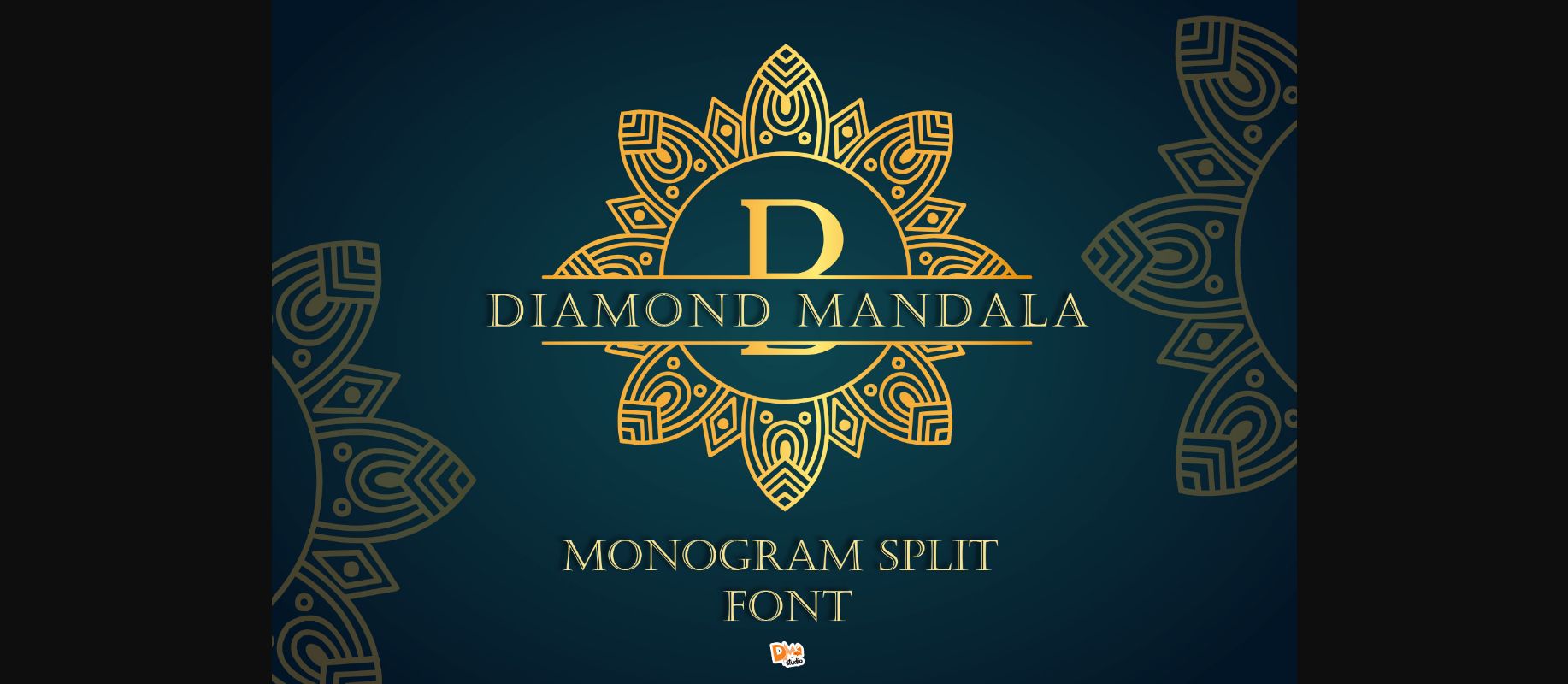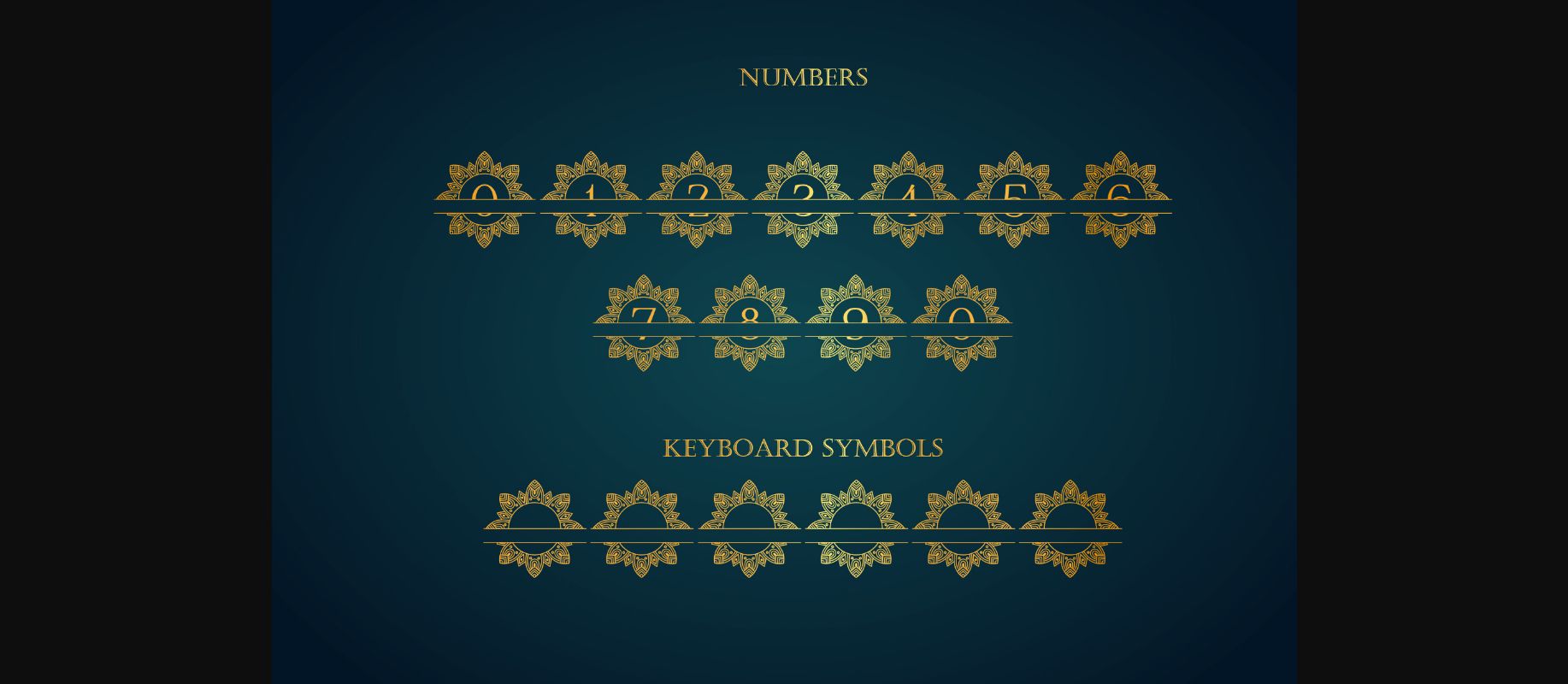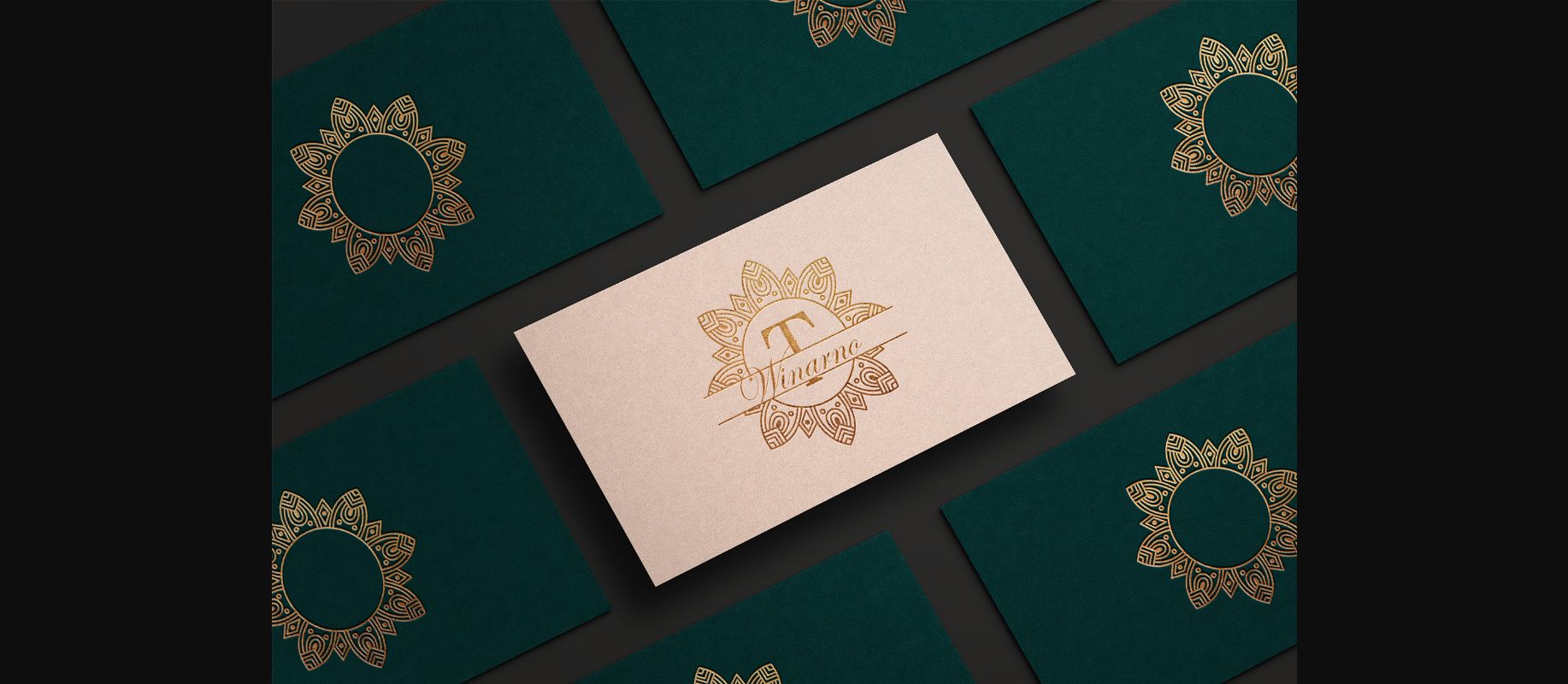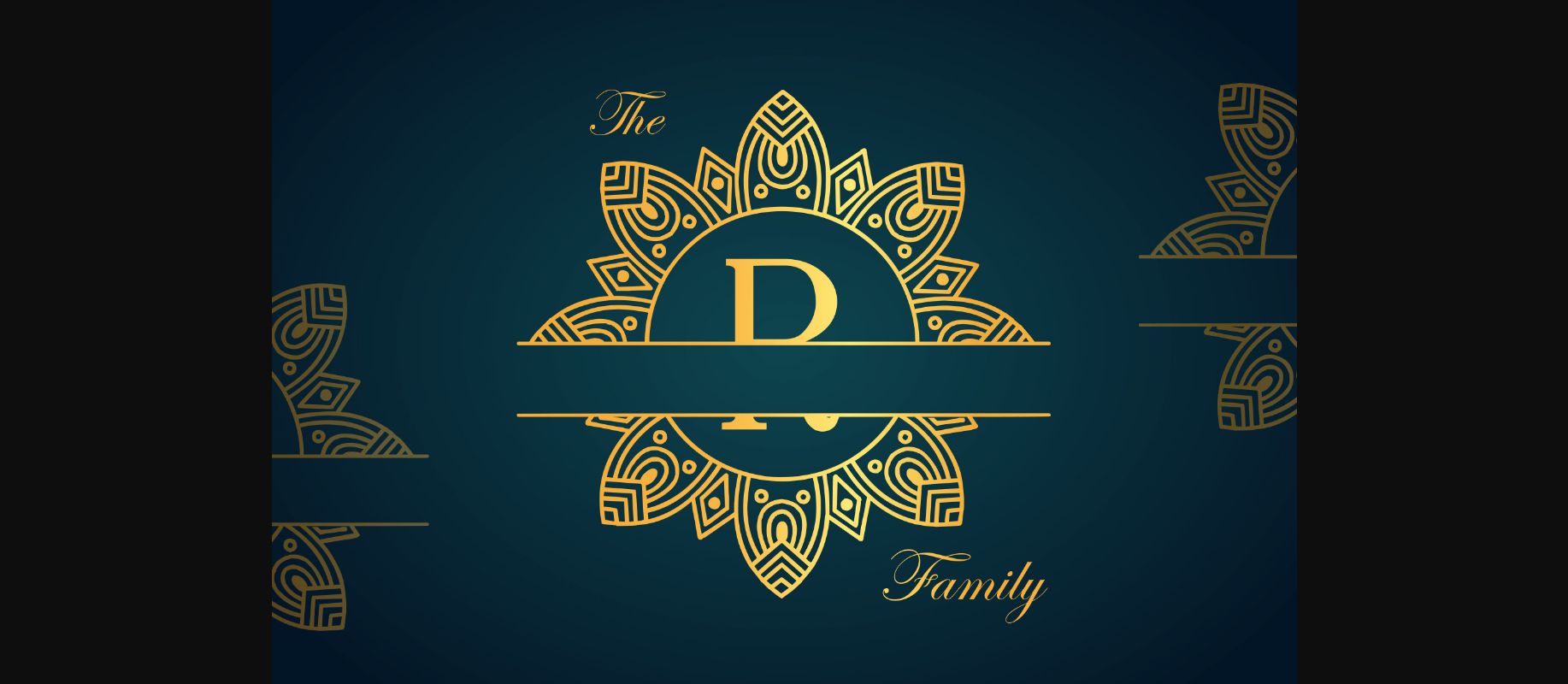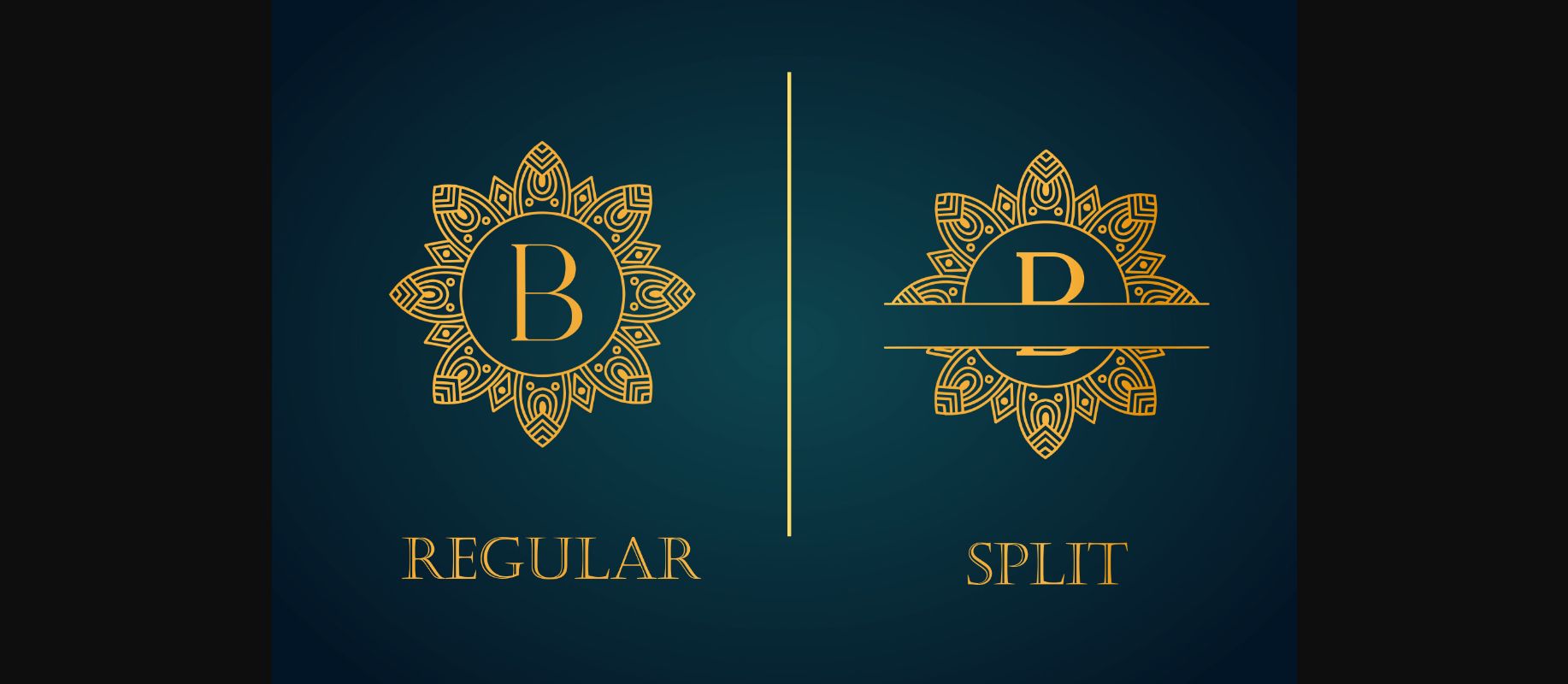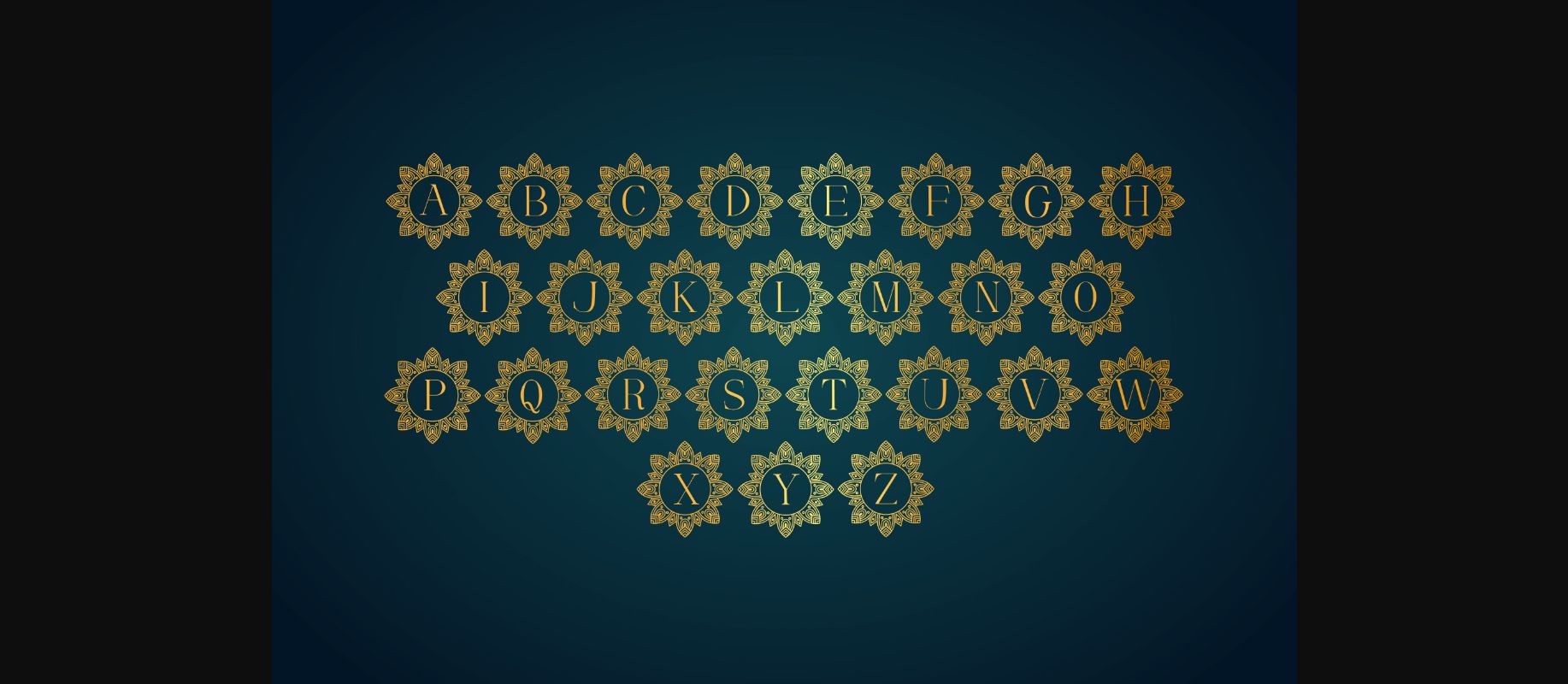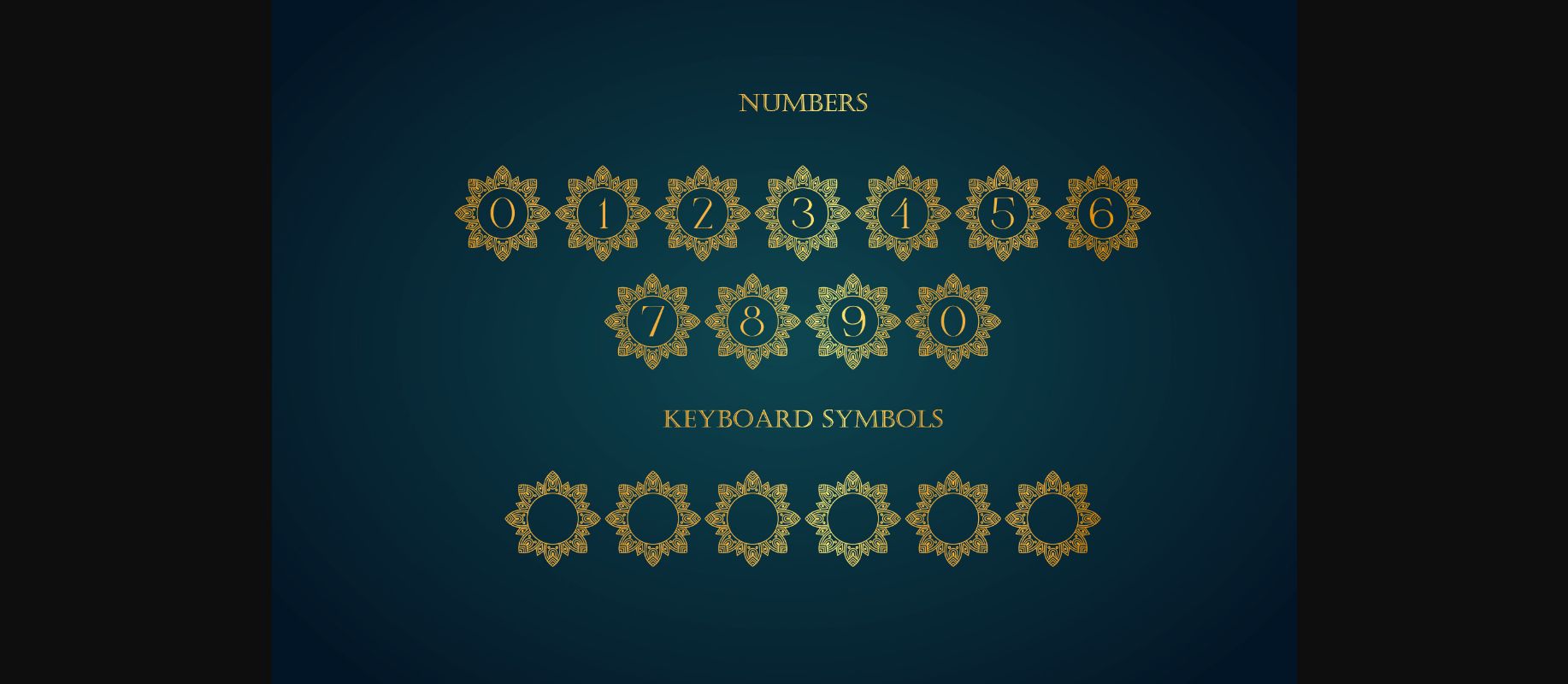
Diamond Mandala Monogram Font
About Diamond Mandala Monogram Font
Diamond Mandala Monogram is an elegant and genuine decorative font. Unique and distinct, this font will match a wide range of design ideas, both formal and personal.